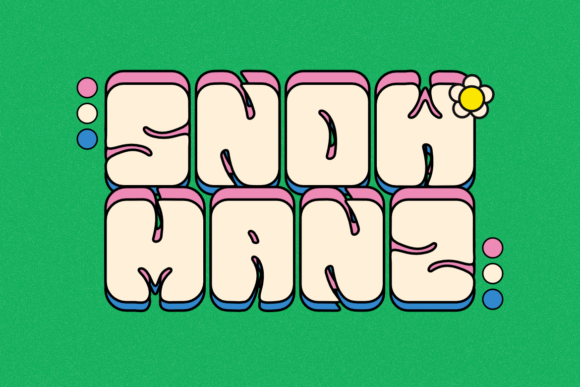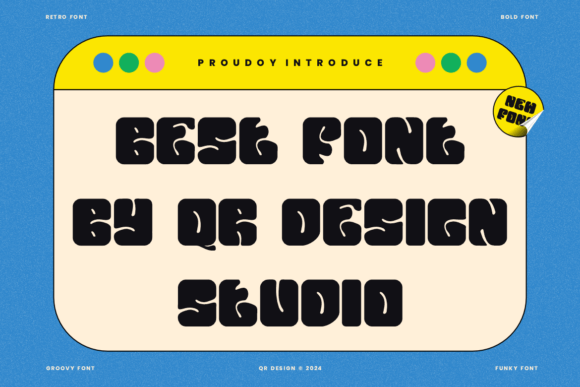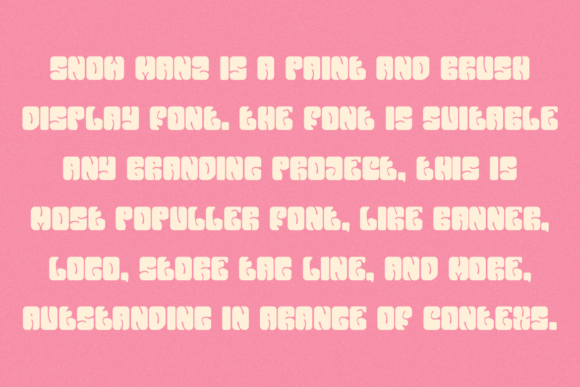
Introduction to Snow Manz Font
Have you ever found yourself stuck in a creative rut, searching for the perfect font to bring your project to life? It’s a moment we’ve all been in – staring at a blank canvas, wondering which design resource will give our work that extra oomph. For designers, the right font can be the difference between a decent project and a truly exceptional one.
Enter the Snow Manz Font, a bold and authentic display font that’s perfect for any branding project. Whether you’re working on a sporty logo or a trendy marketing campaign, this font is sure to make a statement. With its high-quality design and transparent background, it’s the perfect addition to any creative project.
What sets the Snow Manz Font apart is its versatility and wide range of applications. From free download to commercial use, this font is a valuable asset for designers of all levels. In this article, we’ll take a closer look at the Snow Manz Font and explore its features, uses, and benefits for your next creative project.
Key Features of Snow Manz Font
- Unique Hand-Drawn Design: The Snow Manz Font features a one-of-a-kind, hand-drawn design that adds a personal touch to any creative project.
- Large Character Set: The font includes a large character set, including uppercase and lowercase letters, numbers, and special characters, making it suitable for various creative projects.
- Perfect for Winter-Themed Designs: The Snow Manz Font is specifically designed for winter-themed designs, making it an ideal choice for projects related to snow, winter sports, or holiday-themed designs.
Honest Review: Snow Manz Font
As a designer, I’m always on the lookout for high-quality design resources to elevate my creative projects. Recently, I had the opportunity to try out the Snow Manz Font, and I’m excited to share my honest review.
- ✨ Unique and playful design style that’s perfect for winter-themed projects
- ✨ High quality and crisp typography that’s great for both digital and print use
- ✨ Transparent background option, making it easy to use with different backgrounds
However, I did notice a few limitations:
- ⚠️ Limited character set, which might be a concern for designers who need a wide range of characters
- ⚠️ Not suitable for all design projects, as it’s quite festive and might not be suitable for corporate or professional projects
Overall, I think the Snow Manz Font is a great addition to any designer’s toolkit. While it has its limitations, its unique design style and high quality make it a great choice for creative projects that require a fun and festive touch.
Common Use Cases for Snow Manz Font
The Snow Manz Font is a versatile design resource that can be used in a variety of creative projects, including:
- Marketing materials
- Blog posts
- Presentations
- Logos and branding